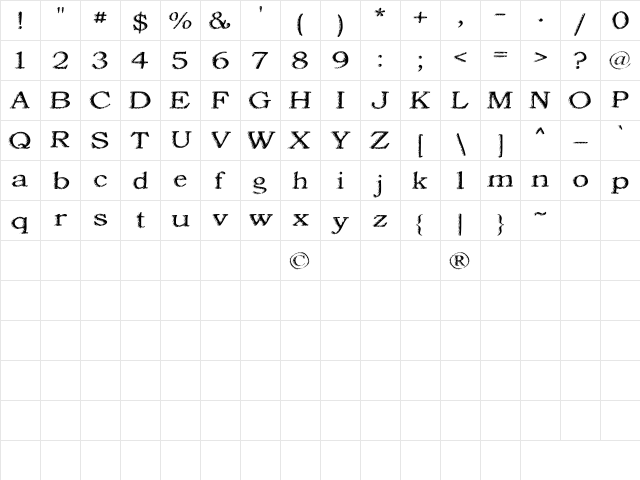
Jordan's Treebark Regular
Design Context for Jordan's Treebark Typeface
Jordan's Treebark takes a measured approach to typography — its balanced proportions and neutral character make it a reliable workhorse for both digital and print work.